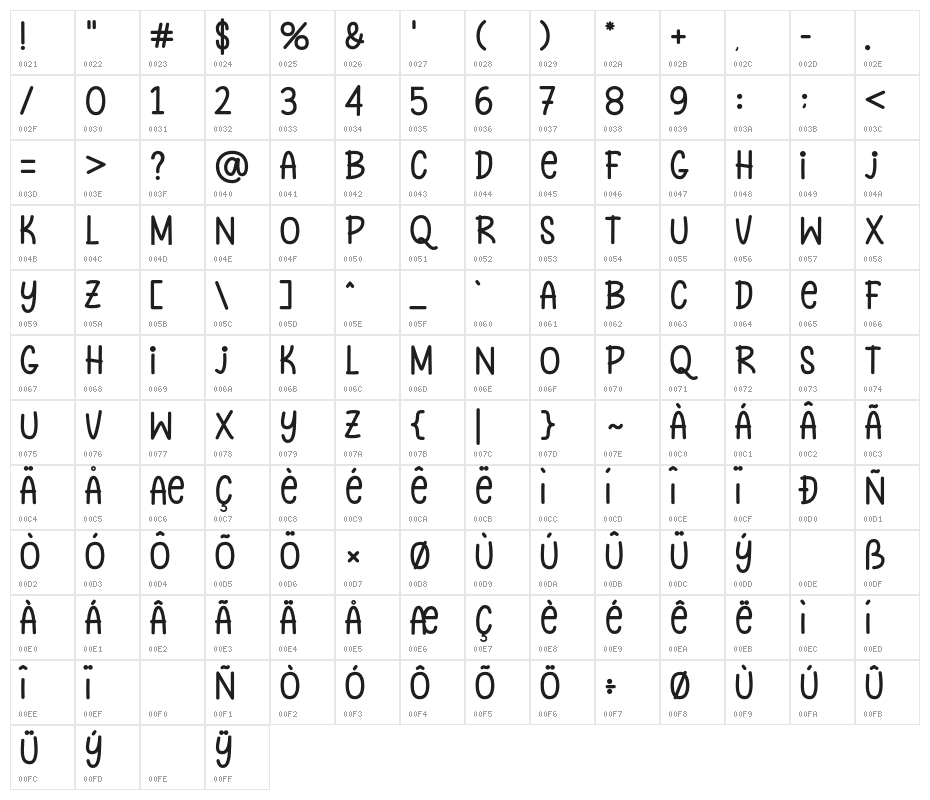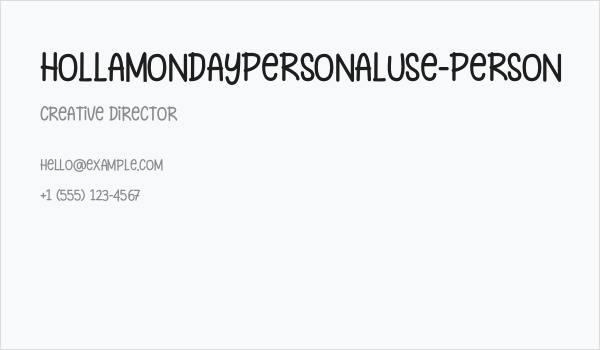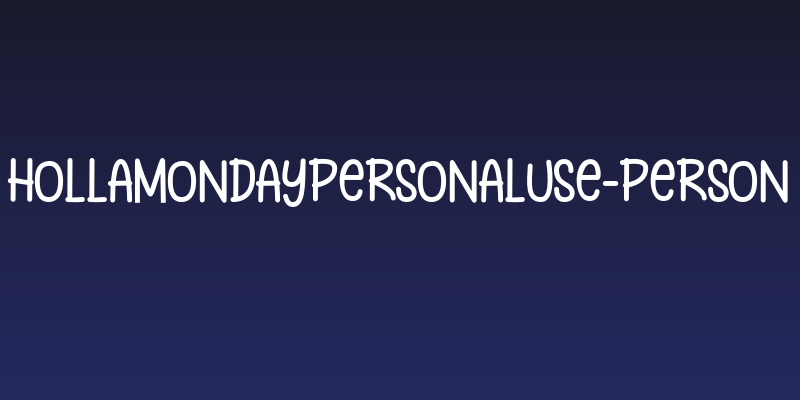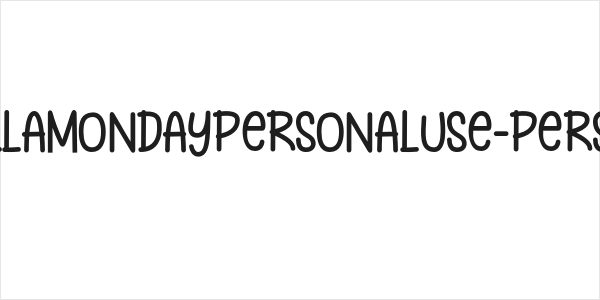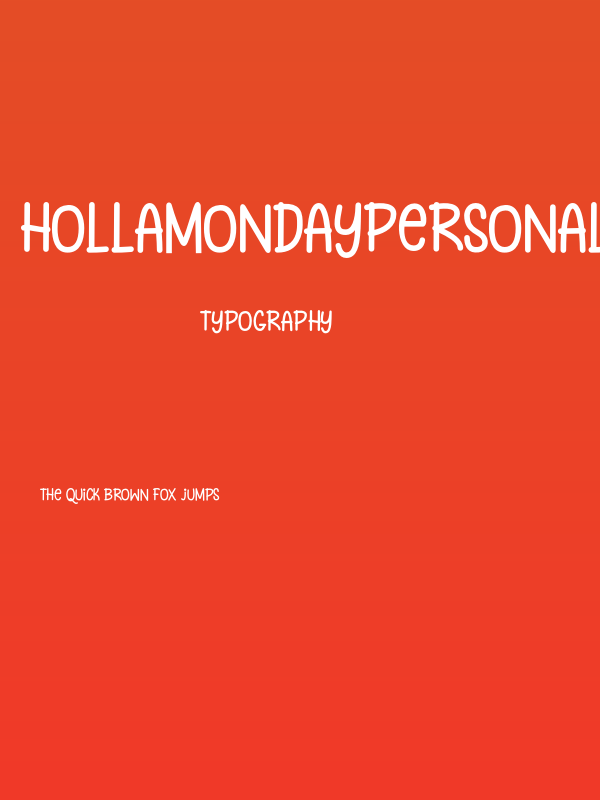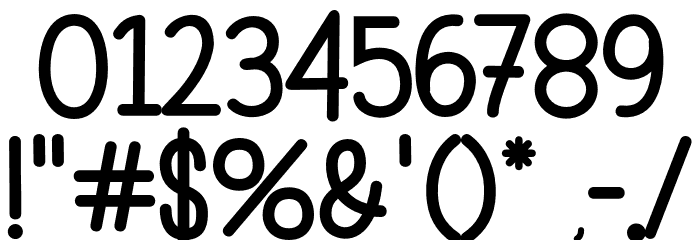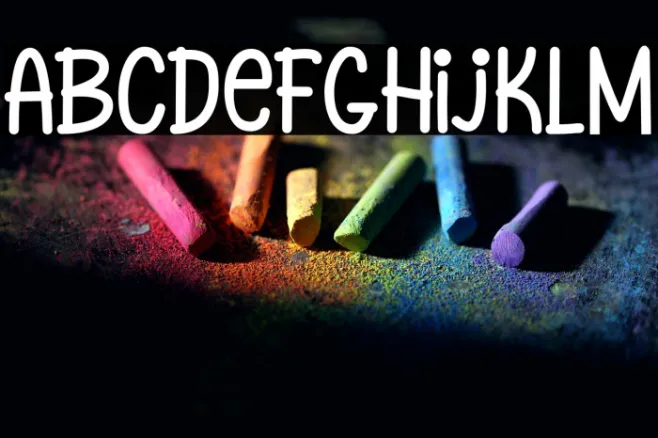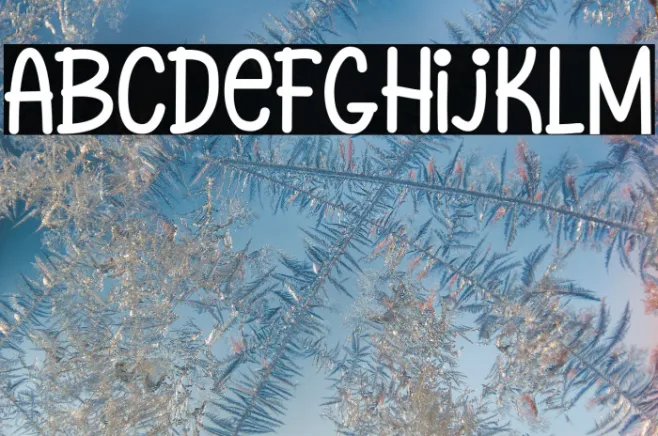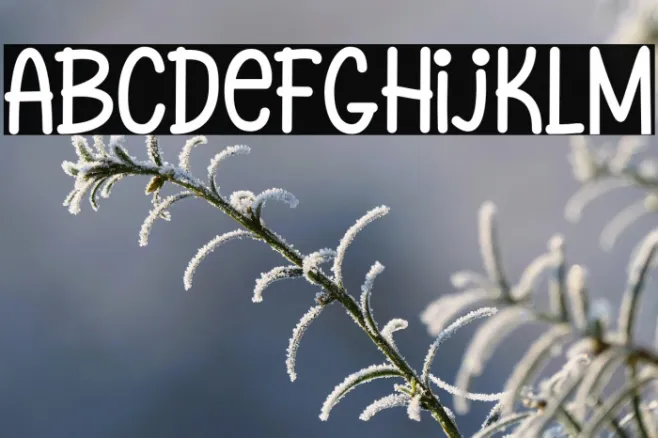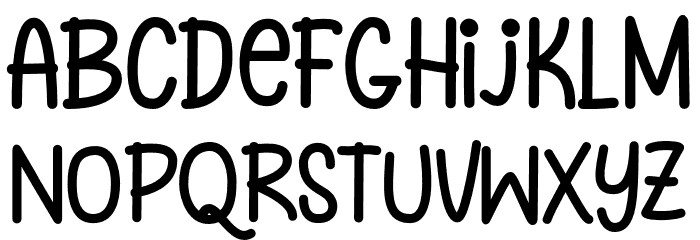
HollaMondaypersonalUse-Person Font
HollaMondaypersonalUse-Person Description
This playful and whimsical font features rounded, bold characters with a hand-drawn aesthetic. The letters are slightly irregular, giving them a casual and friendly appearance. The strokes are consistent in width, creating a uniform look across all characters. The font includes both uppercase and lowercase letters, numbers, and a variety of special characters, making it versatile for different uses. Its informal style is ideal for projects that require a personal touch or a fun, approachable vibe.
| Font Family | Holla Monday (personal Use) |
| Overall Style | Casual and playful |
| Use Case | Headlines, Logos, Informal text |
| Proposed Projects | Ideal for children's books, greeting cards, playful branding, and social media graphics. |